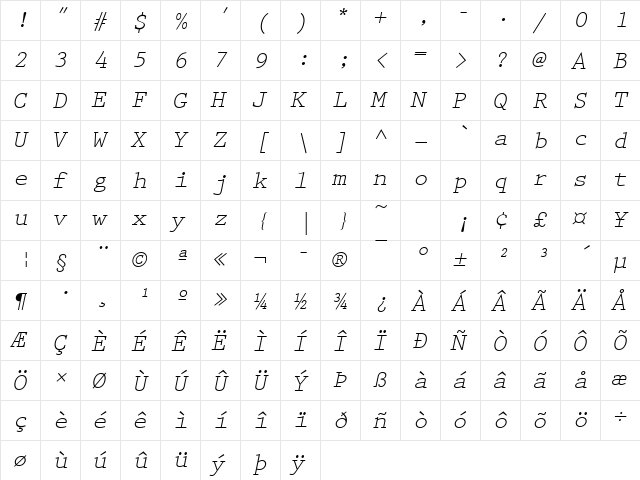
PrestigeEliM Oblique Font Preview
PrestigeEliM Oblique
Design Context for PrestigeEliM Typeface
PrestigeEliM offers clean, dependable letterforms without strong stylistic allegiance, making it a practical choice for designers who need flexibility. The slanted form adds forward momentum and visual energy.